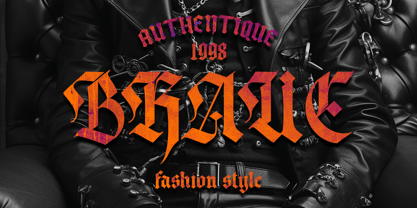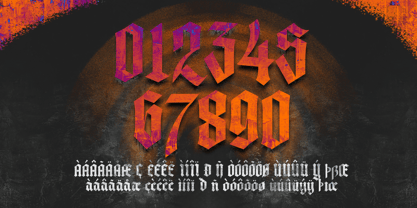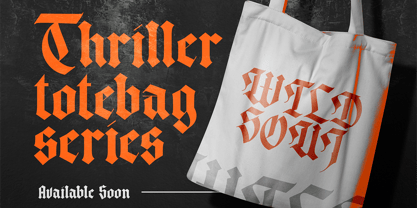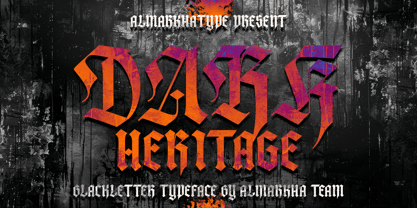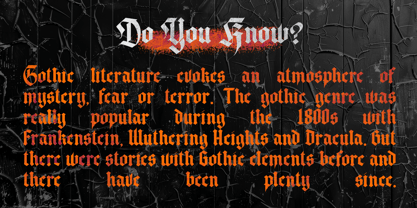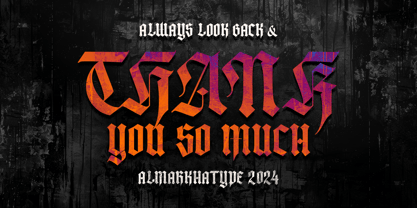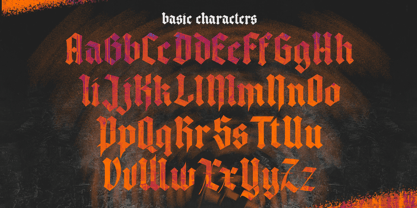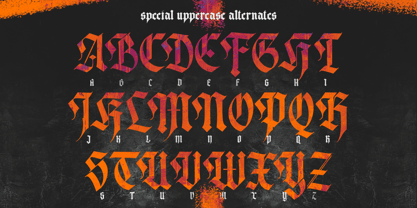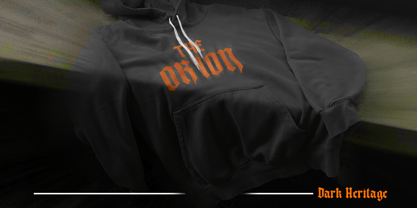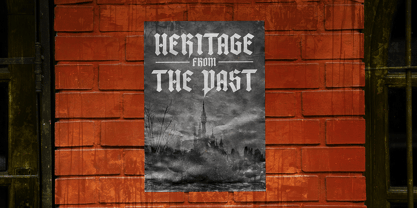
Dark Heritage
by Almarkha Type
The Dark Heritage Font Family was designed by Abdul Malik Wisnu and published by Almarkha Type. Dark Heritage contains 1 styles. More about this family
Dark Heritage is a typeface inspired by the traditional Textura blackletter style. This font features a clean finish and a modern twist with rectangular touches at the tips of the characters, giving it a contemporary edge. The combination of classic Blackletter elements and modern design details makes Dark Heritage a versatile choice for various design projects. Whether you’re creating a sophisticated logo, an eye-catching headline, or elegant packaging, Dark Heritage delivers a unique blend of historical charm and modern aesthetics.
Designers: Abdul Malik Wisnu
Foundry: Almarkha Type